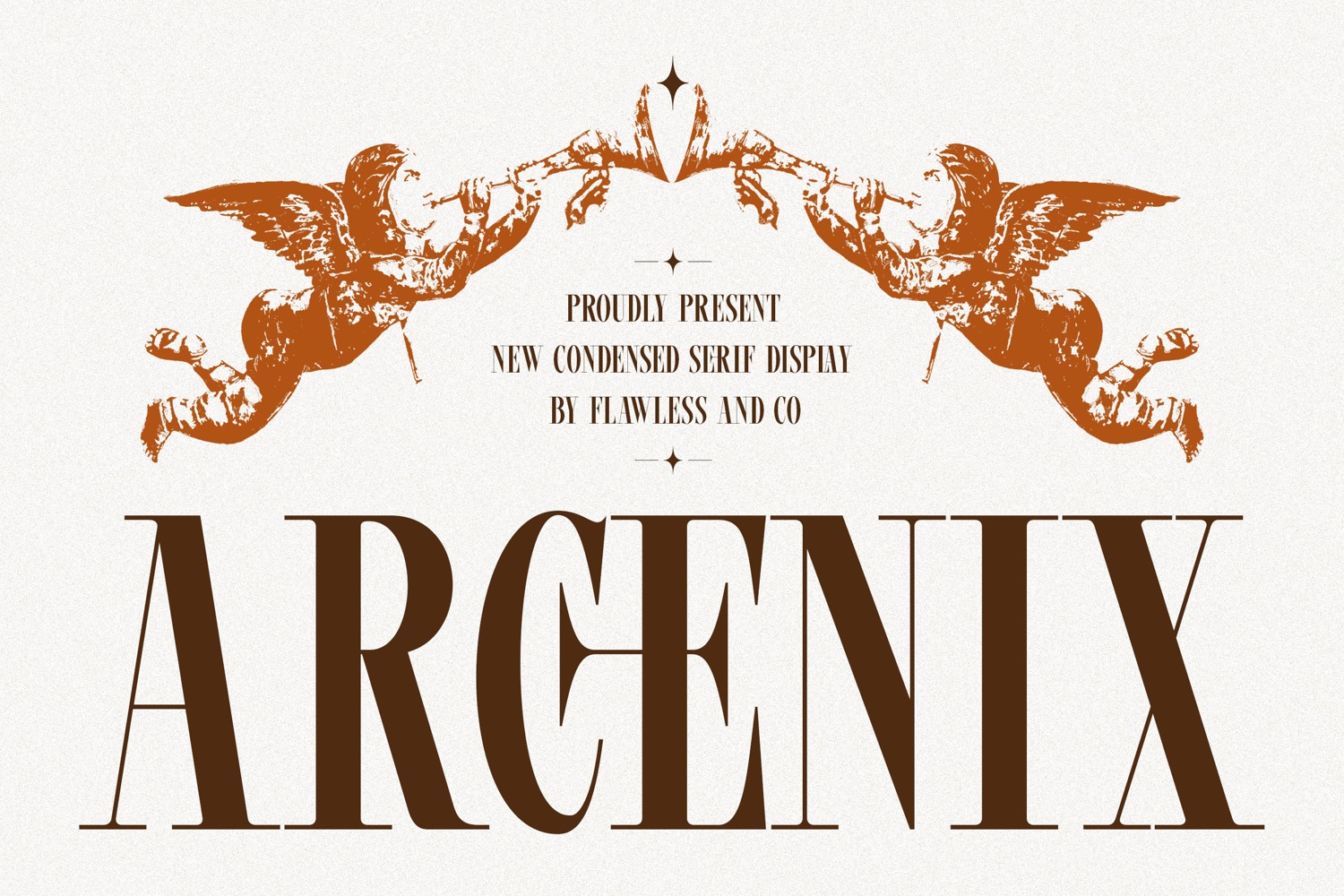
Arcenix – Condensed Serif Font
Arcenix – Condensed Serif Font is a stylish typeface that enhances visual appeal and works effortlessly in many design contexts. Arcenix is a modern condensed serif display typeface crafted to deliver elegance, precision, and strong visual impact. With its tall, narrow letterforms and refined serif details, Arcenix creates a sophisticated vertical flow that feels both classic and contemporary. Its condensed structure allows you to maximize space while maintaining clarity, making it ideal for classic headlines and stylish layouts. Arcenix brings a perfect balance of luxury and efficiency to any design.